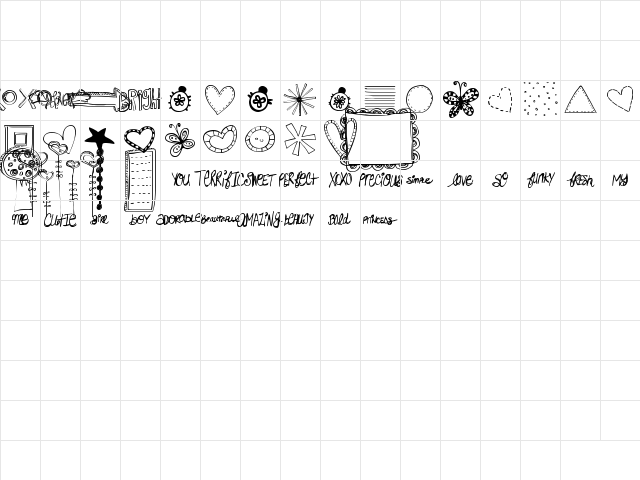
MTF Doodlewhats Regular
Designer: Miss Tiina
Design Context for MTF Doodlewhats
MTF Doodlewhats is a composed and adaptable typeface that performs quietly and consistently across a wide range of design contexts.